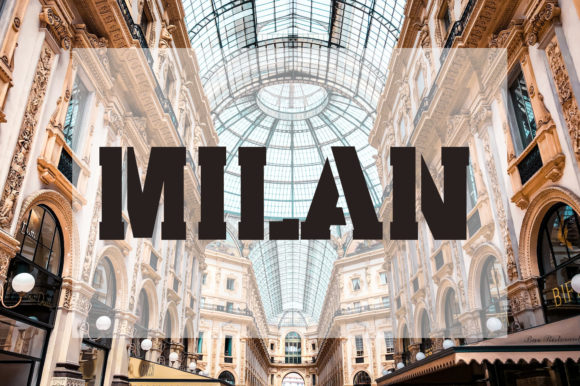
Looking for a bold and eye-catching display font? Look no further than Milan Stencil Font, created by the talented designer Vladimir Carrer. This stencil display font is perfect for creating striking designs with a unique urban vibe. With its sharp lines and distinctive style, Milan is sure to make a statement on any project.
Milan Stencil Font is the ideal choice for anyone looking to create bold letters that stand out from the crowd. Whether you're designing a poster, creating branding materials, or just adding a touch of personality to your website, Milan is the perfect font for the job.
One of the standout features of Milan Stencil Font is its versatility. It's suitable for a wide range of projects and can be used in a variety of contexts. Whether you're looking to create a sleek and modern design or something with a more vintage feel, Milan is the perfect font for the job.
In addition to its striking appearance, Milan Stencil Font is also incredibly easy to use. It comes with a range of glyphs and characters, making it easy to create the exact look you're after. Plus, it's featured in a CF Class: Create Your Own Reusable Stencils, so you can be sure you're getting the most out of this versatile font.